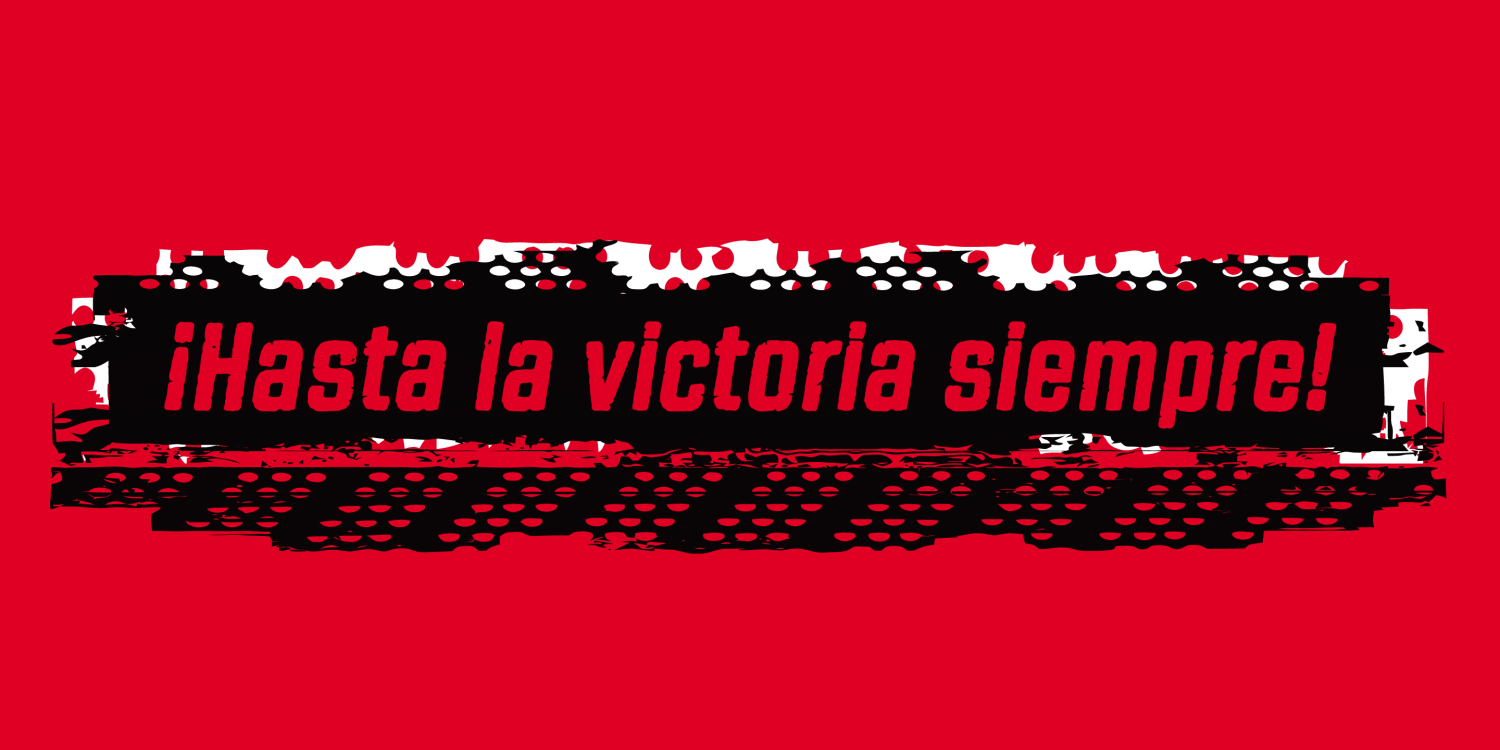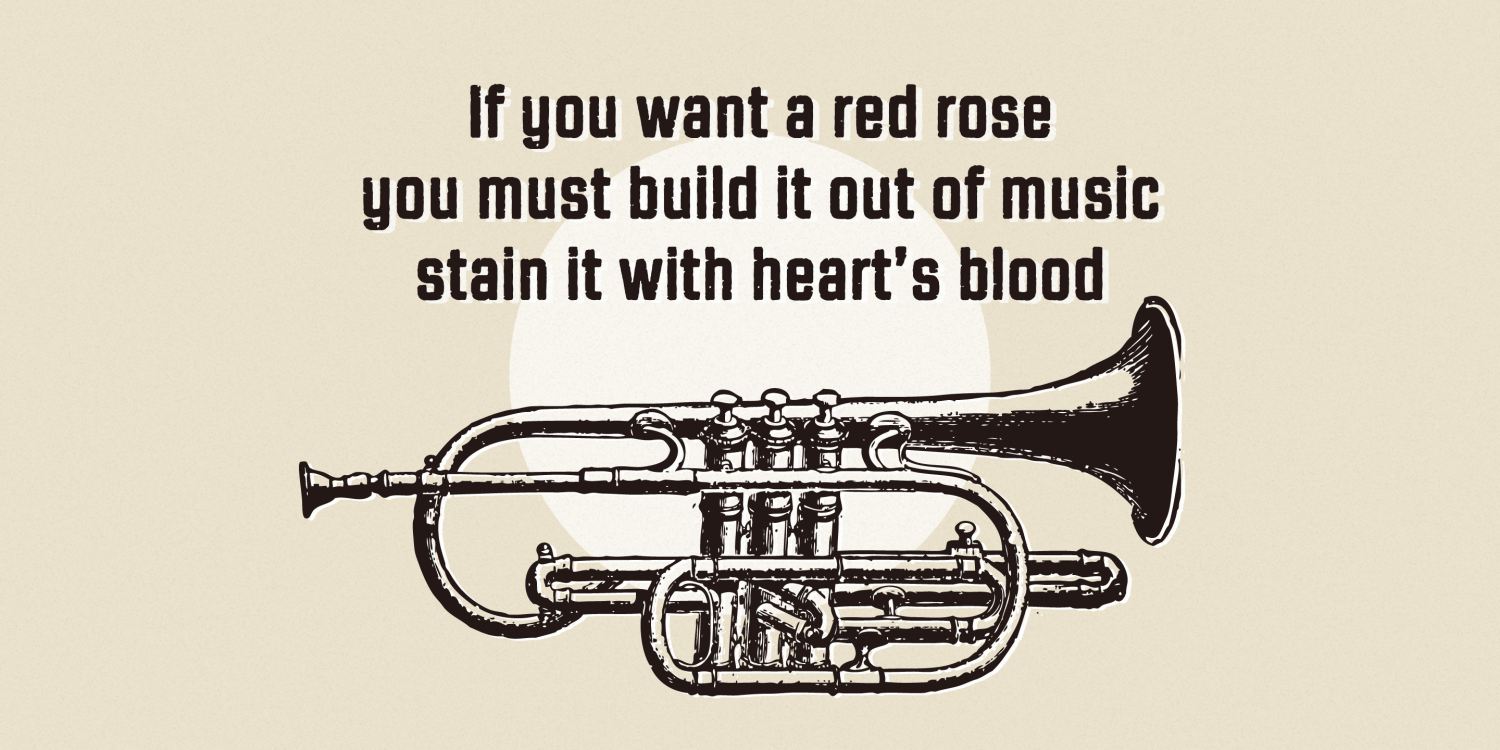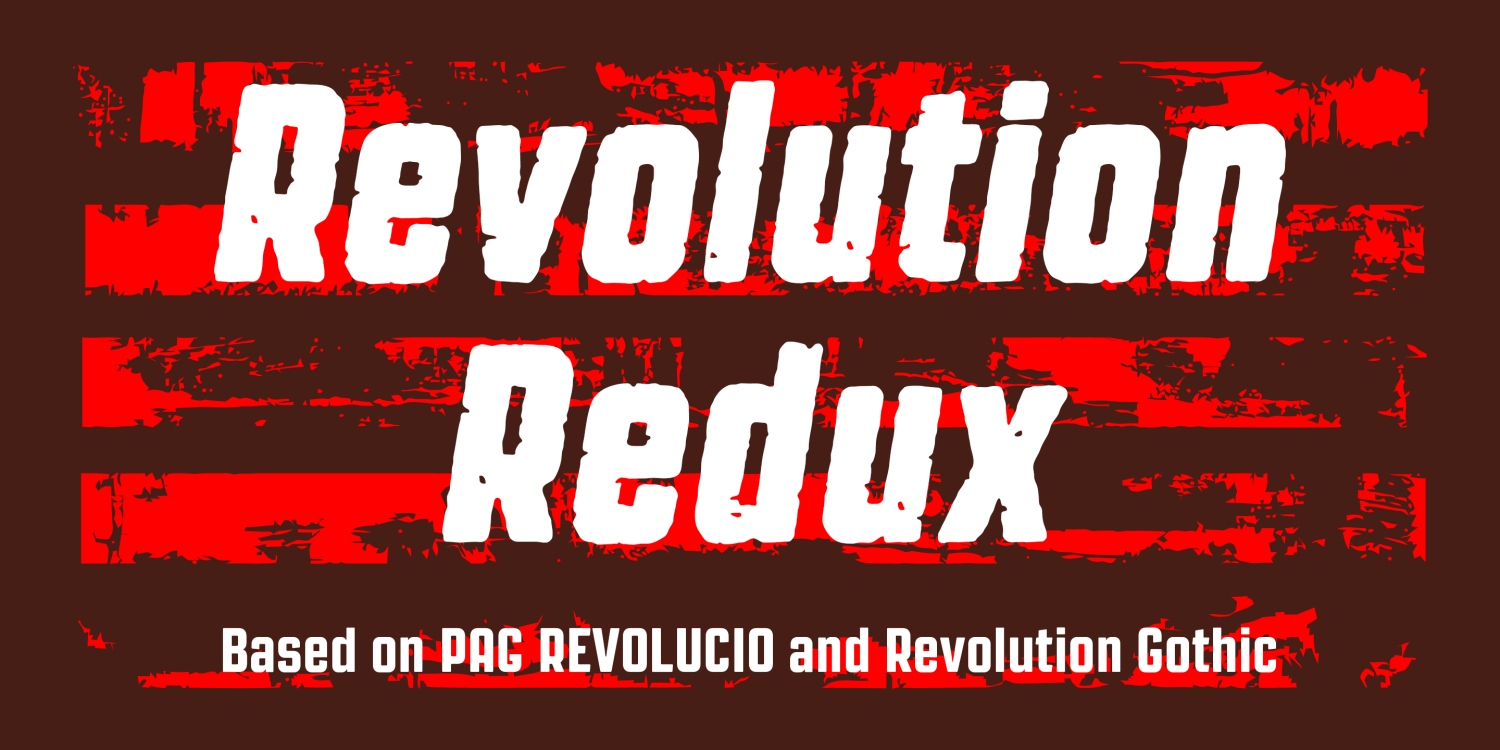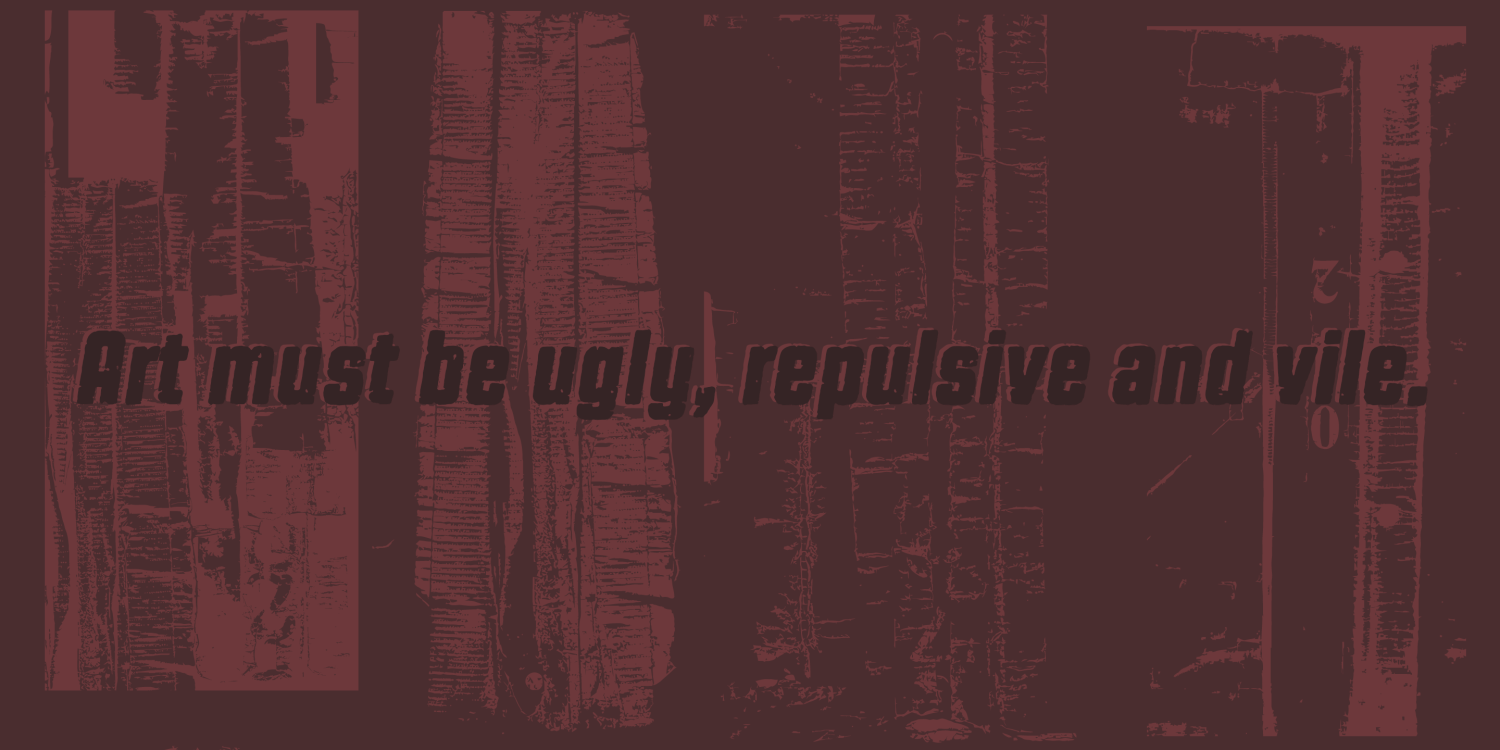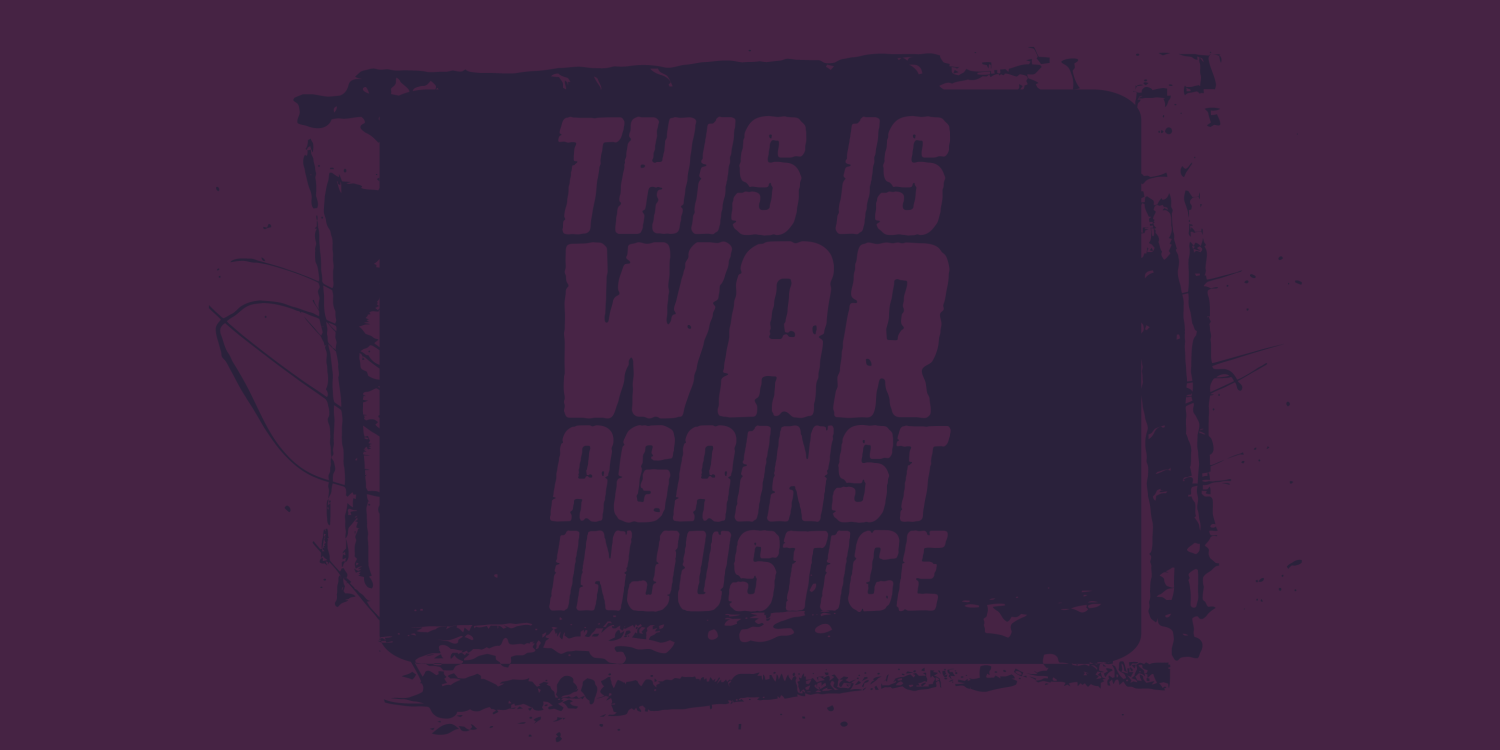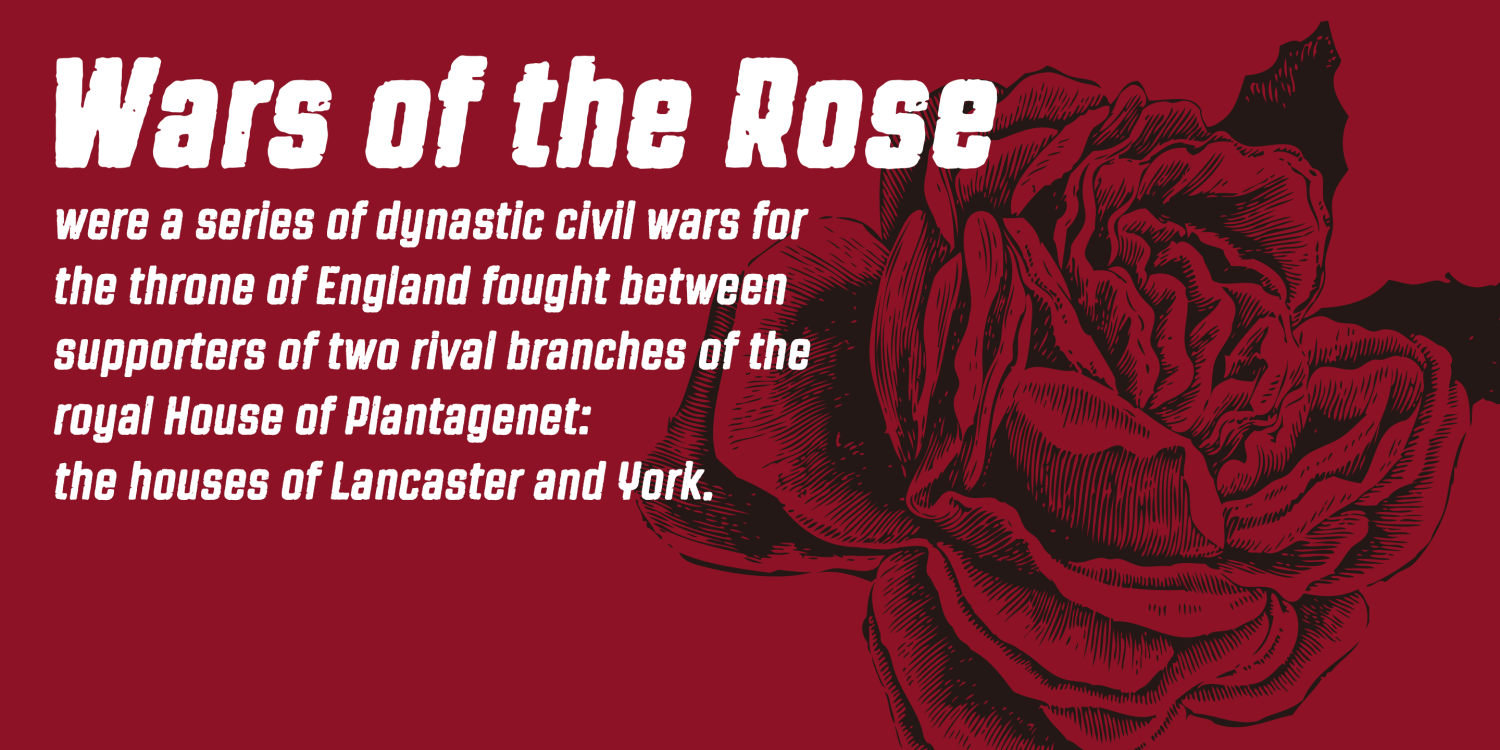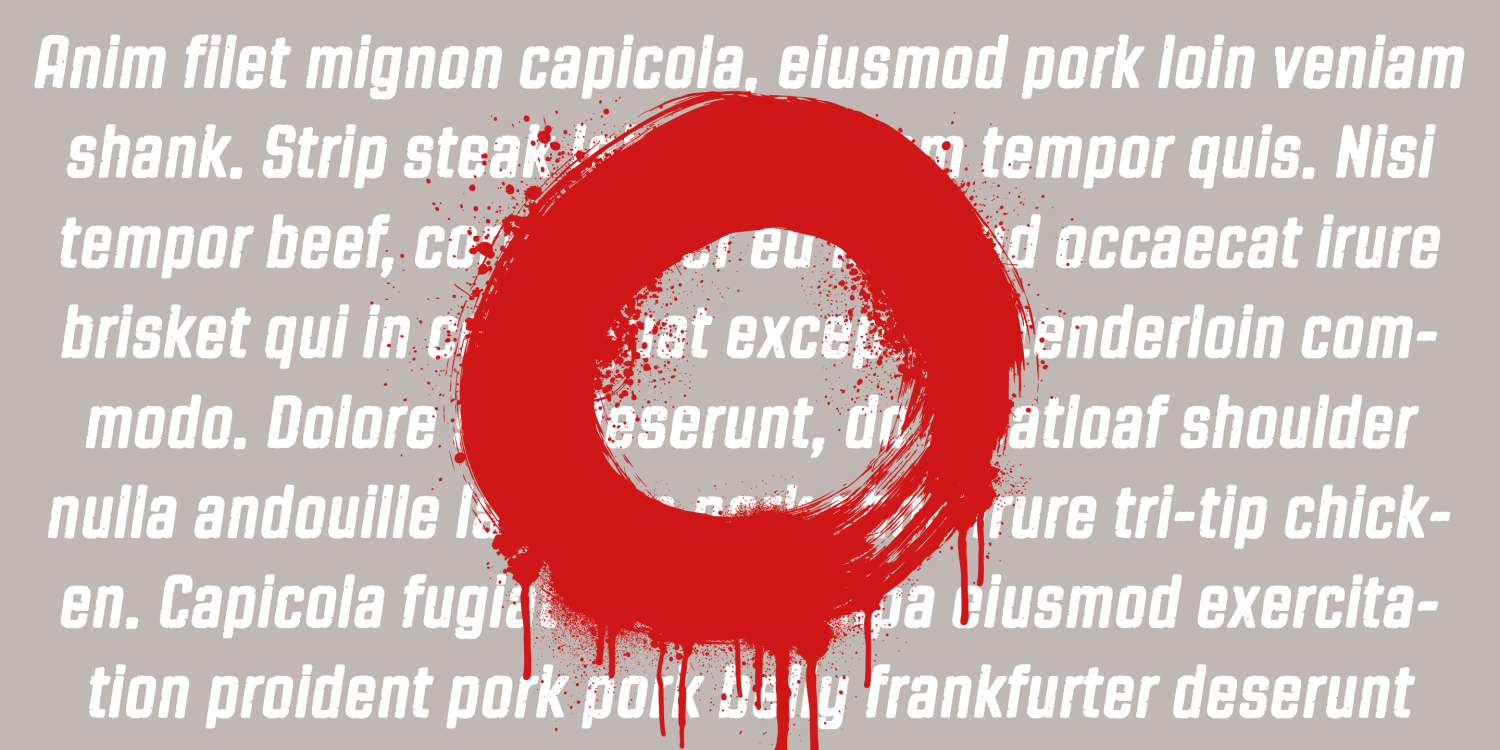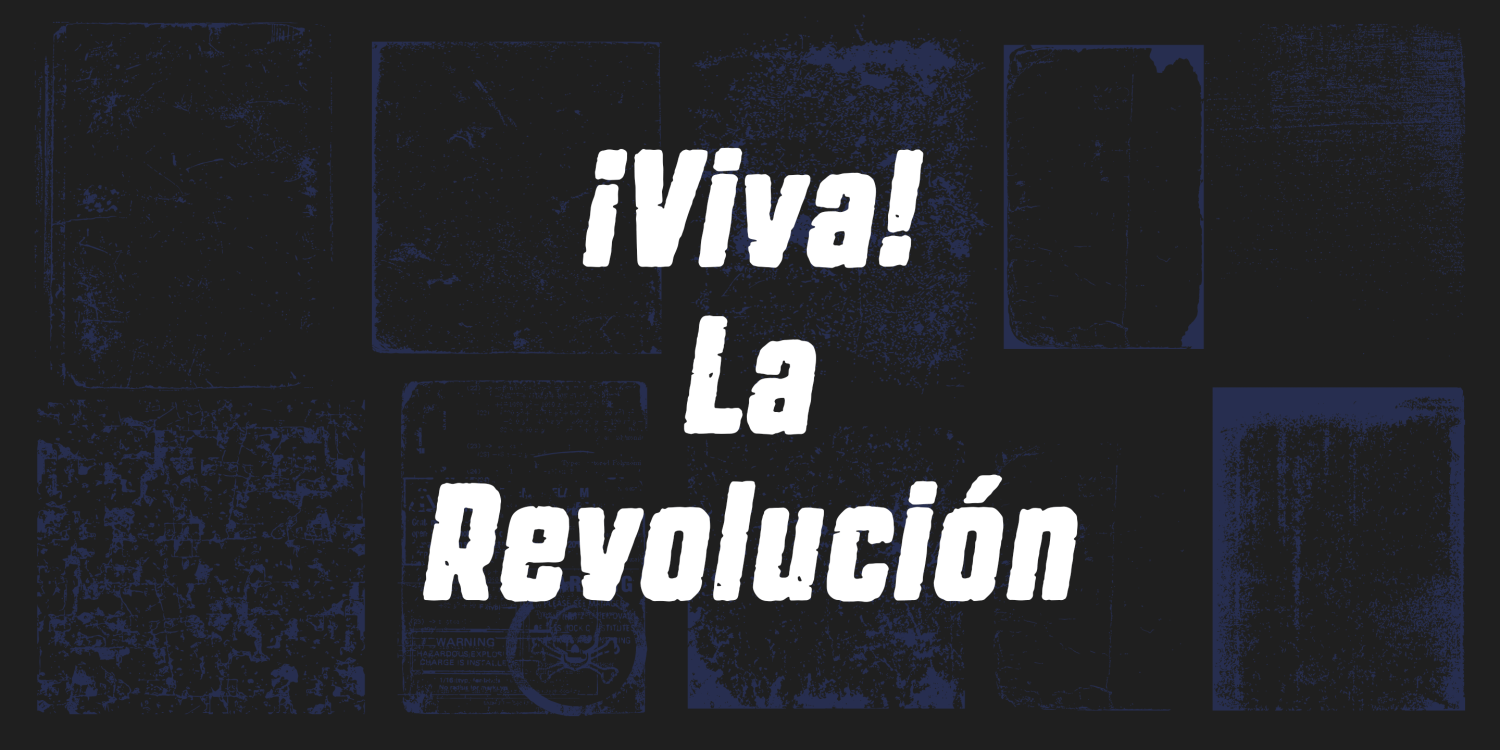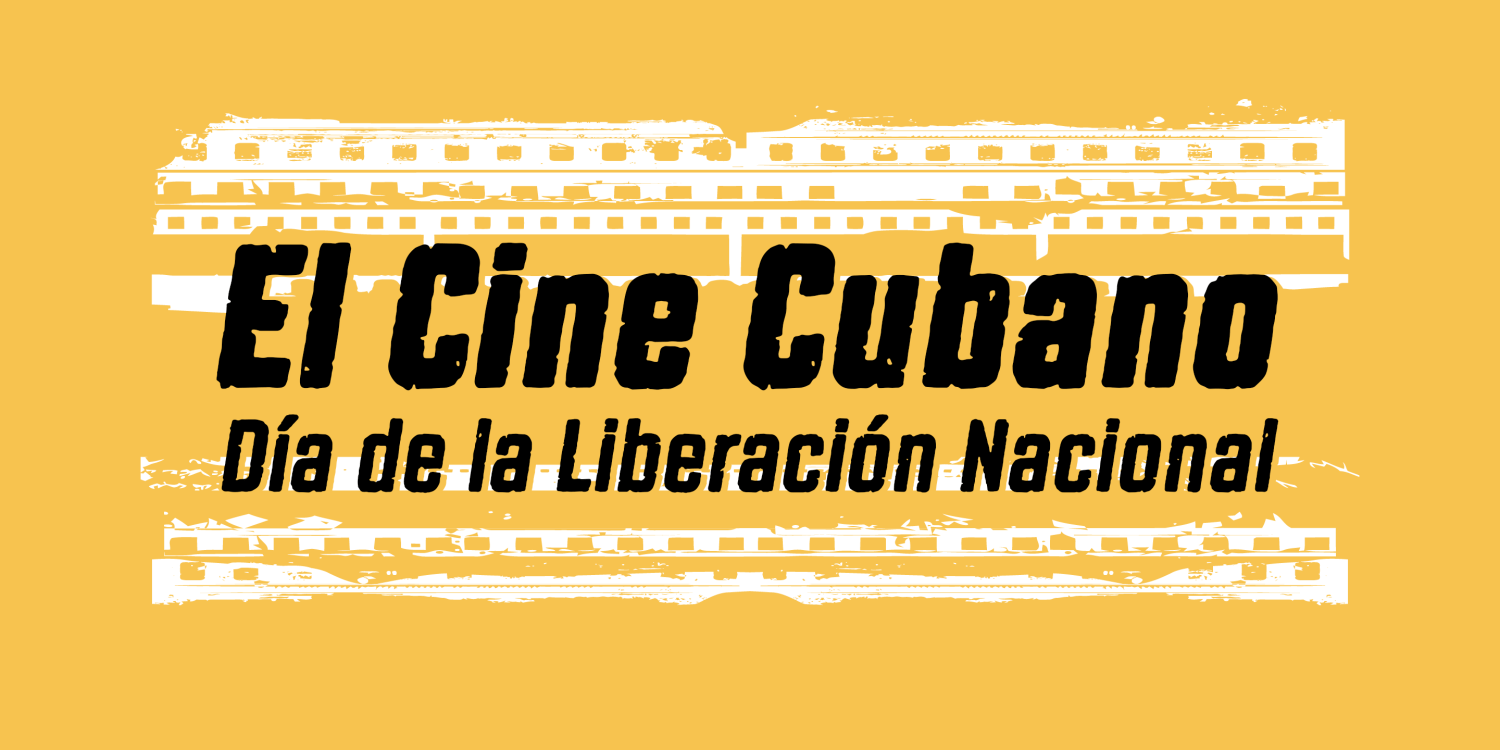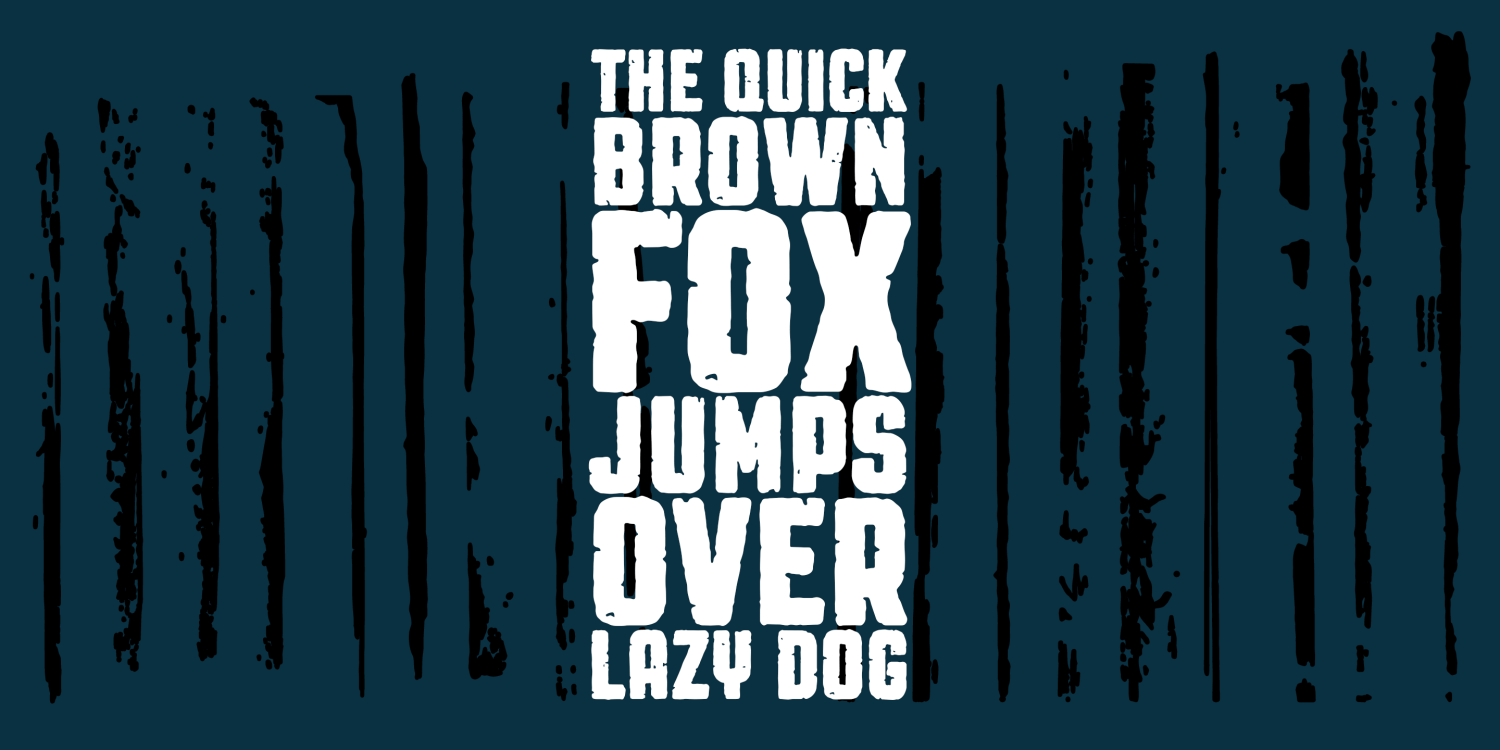
Revolution Gothic P
Font Family by Dharma Type
Revolution Gothic P is a distressed version of the Revolution Gothic type family—an extended and reimagined design based on PAG Revolucion, originally released by the Prop-A-Ganda type foundry in 2008.
Inspired by retro propaganda posters and wall paintings from the 1960s to 1980s, the original PAG Revolucion became the most popular font from the foundry.
In Revolution Gothic P, the glyphs have been carefully hand-distressed to replicate the look of naturally aged and weathered print, enhancing its nostalgic authenticity.
The family includes Roman, Italic, Bold, and Bold Italic styles, making it a versatile choice for both print and web, and a powerful solution for designers seeking a bold, vintage look with authentic texture.